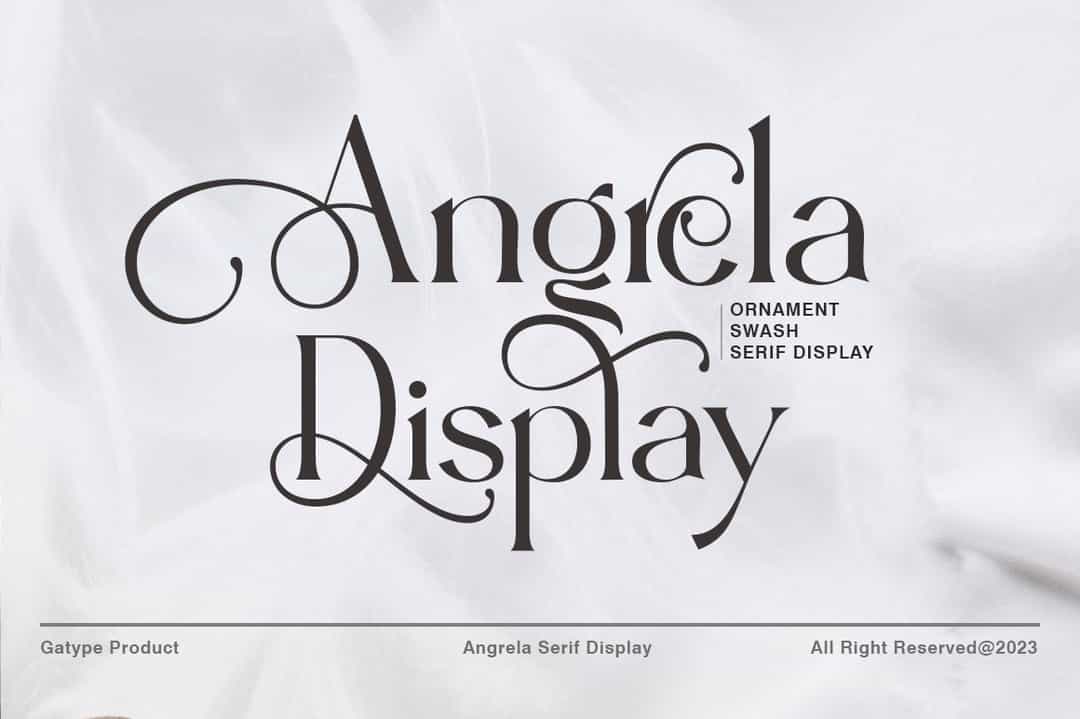
Angrela Display is an ornamental serif typeface with an exquisite, luxurious, modern, unique, and sophisticated appearance that lends itself well to use in elaborate themes, brand and design projects magazine, social Media branding logos brand names website headers as well as trendy text overlays on backgrounds photos for added interest and many other projects that require elegant finishing touches.